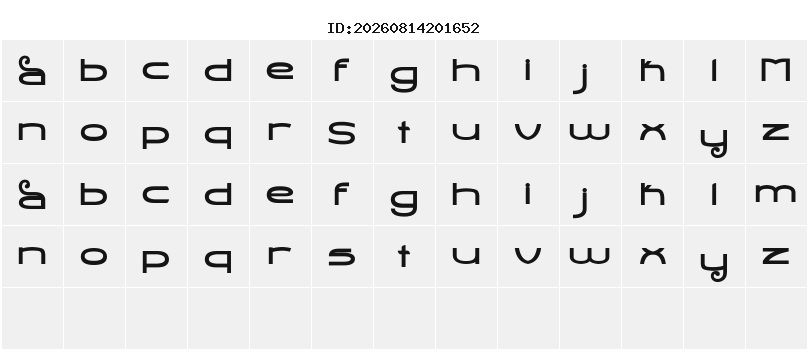
About Stealth Magnum Bold.ttf
Stealth Magnum Bold.ttf is a modern, elegant sans-serif font designed for ultimate readability and visual harmony. Perfect for branding, headlines, web design, and print materials.